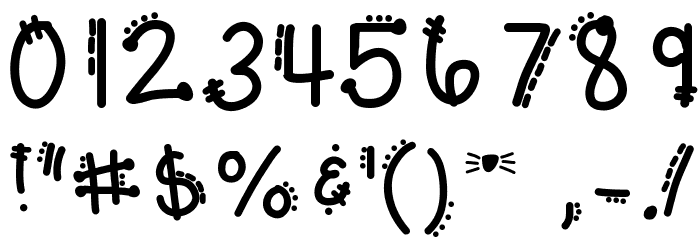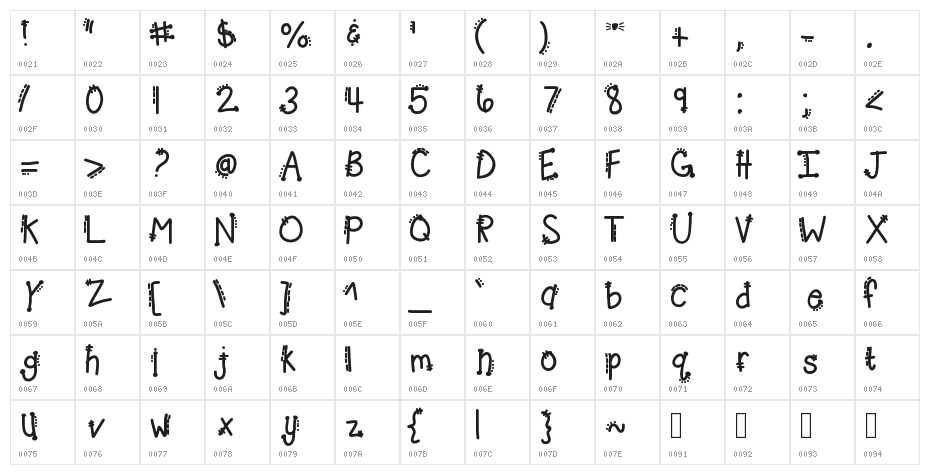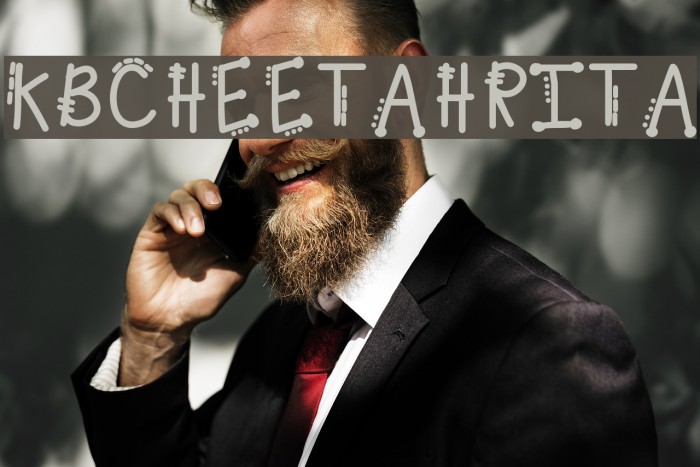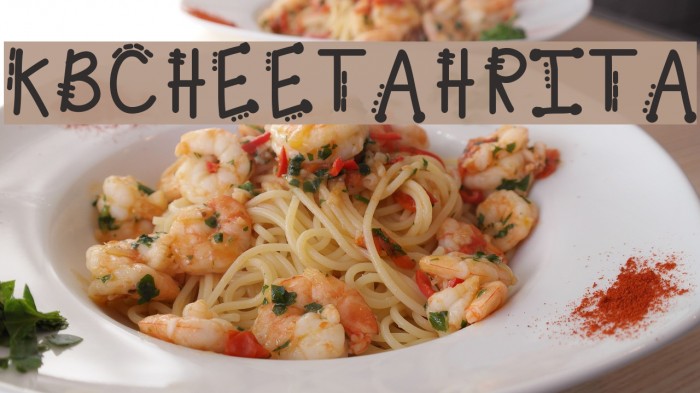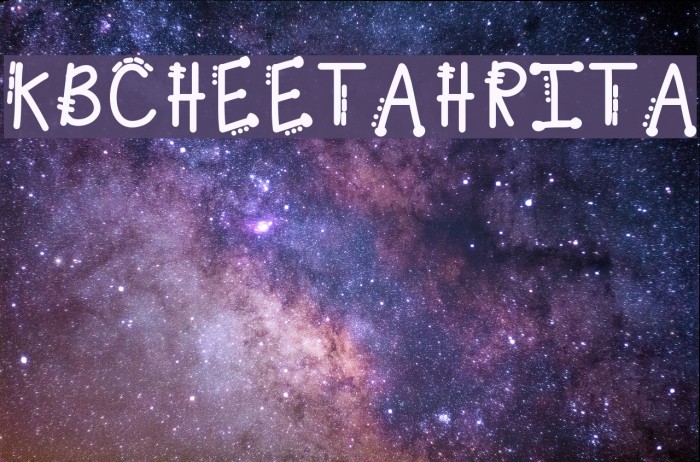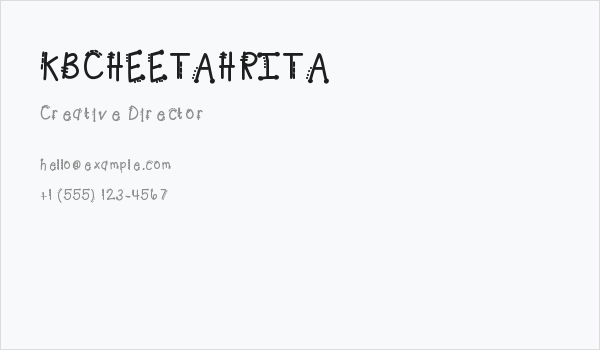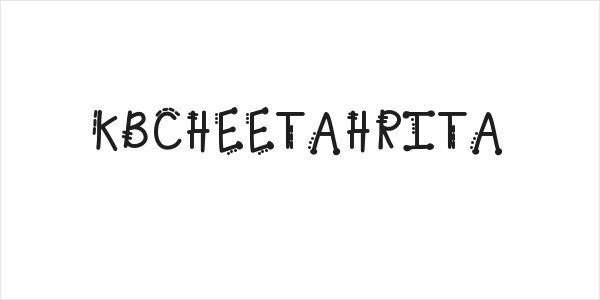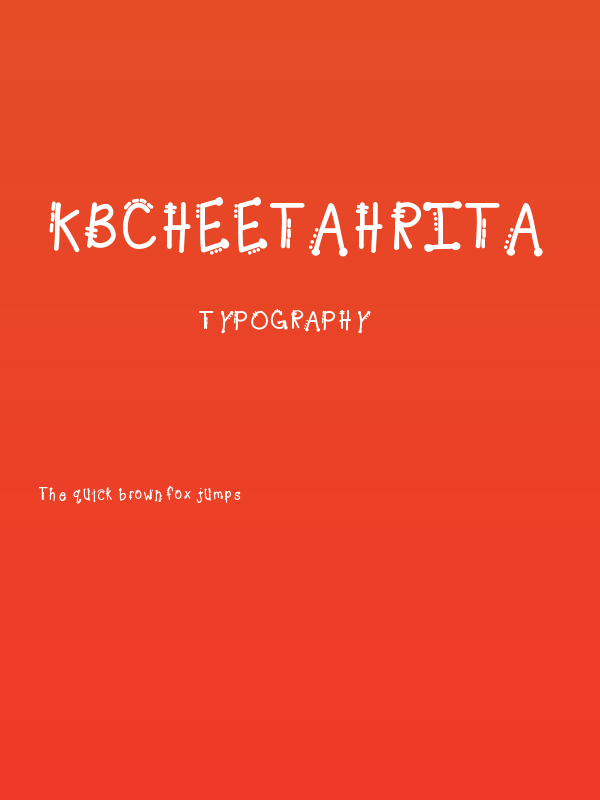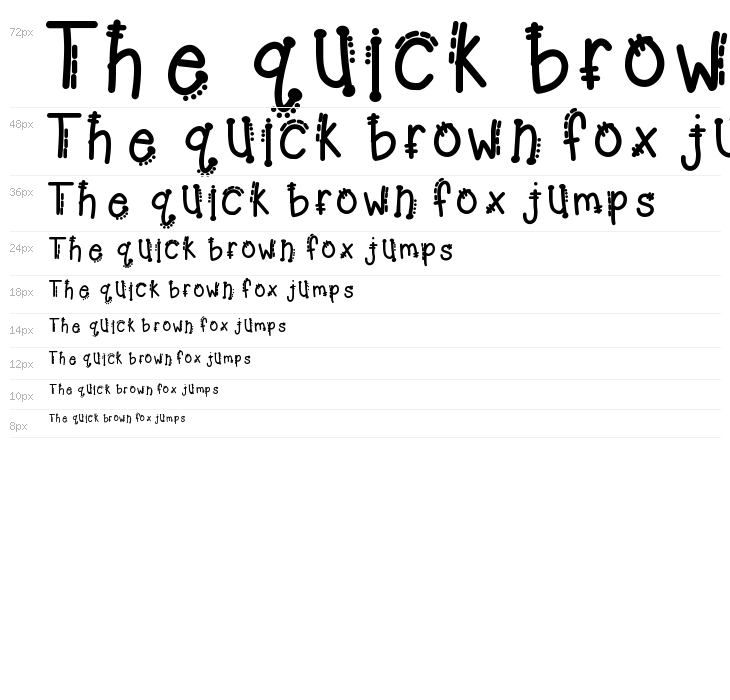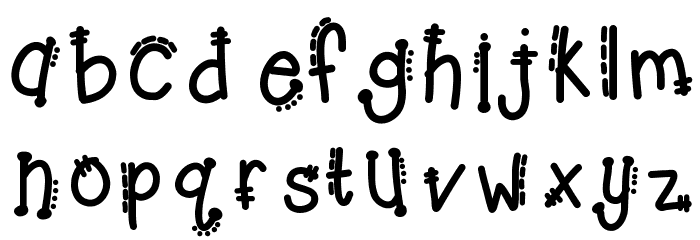
KBCHEETAHRITA Font
KBCHEETAHRITA Description
This playful and whimsical font features a unique design with dotted accents that resemble cheetah spots, adding a fun and lively touch to each character. The letters are bold and rounded, with a slightly irregular baseline that enhances its casual and informal appearance. The uppercase and lowercase letters maintain a consistent style, while the numbers and special characters are designed to match the overall theme. This font is perfect for projects that require a sense of fun and creativity, such as children's books, party invitations, or playful branding.
| Overall Style | Whimsical, Playful |
| Proposed Projects | Ideal for children's books, party invitations, playful branding, and creative projects. |